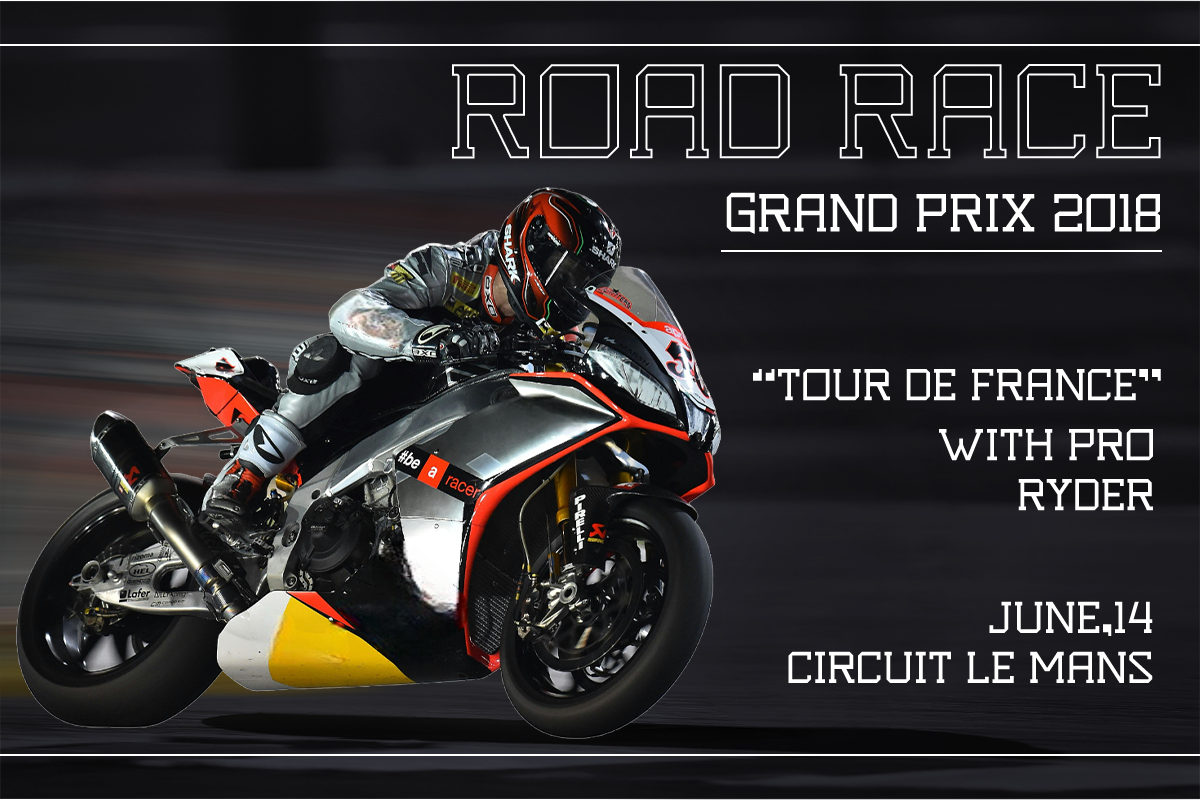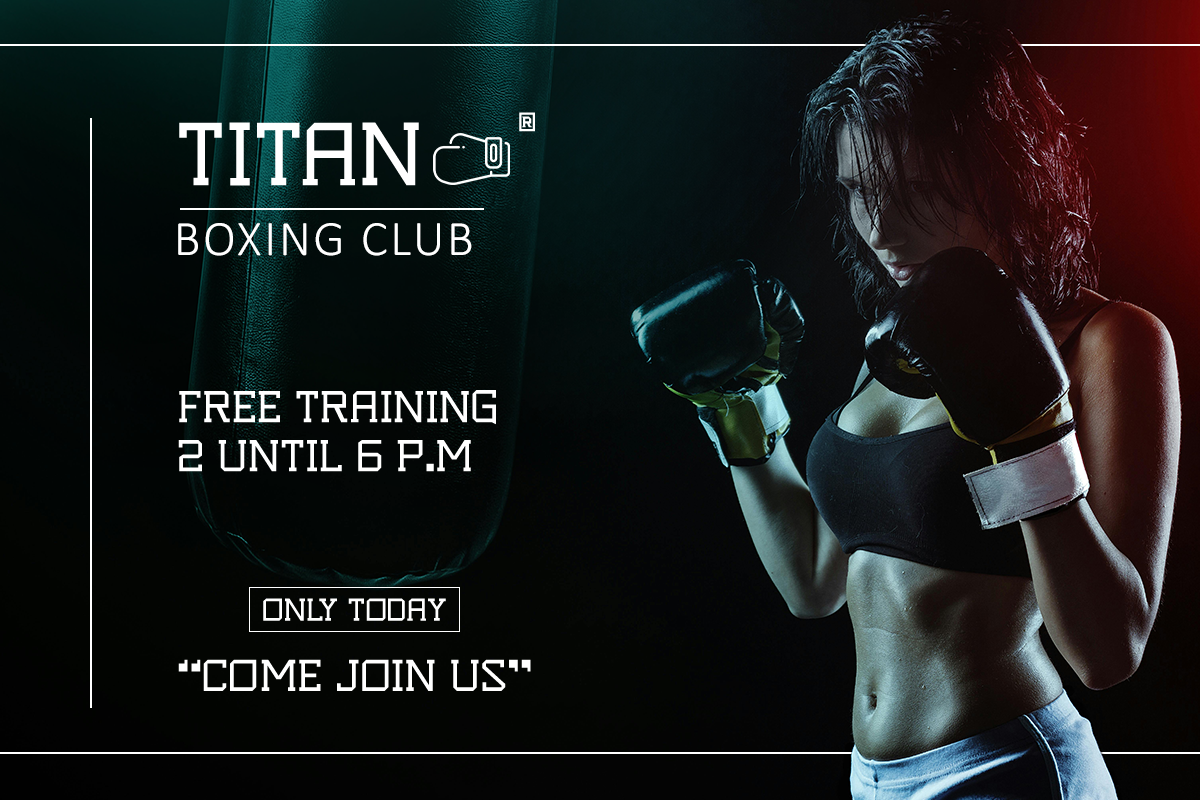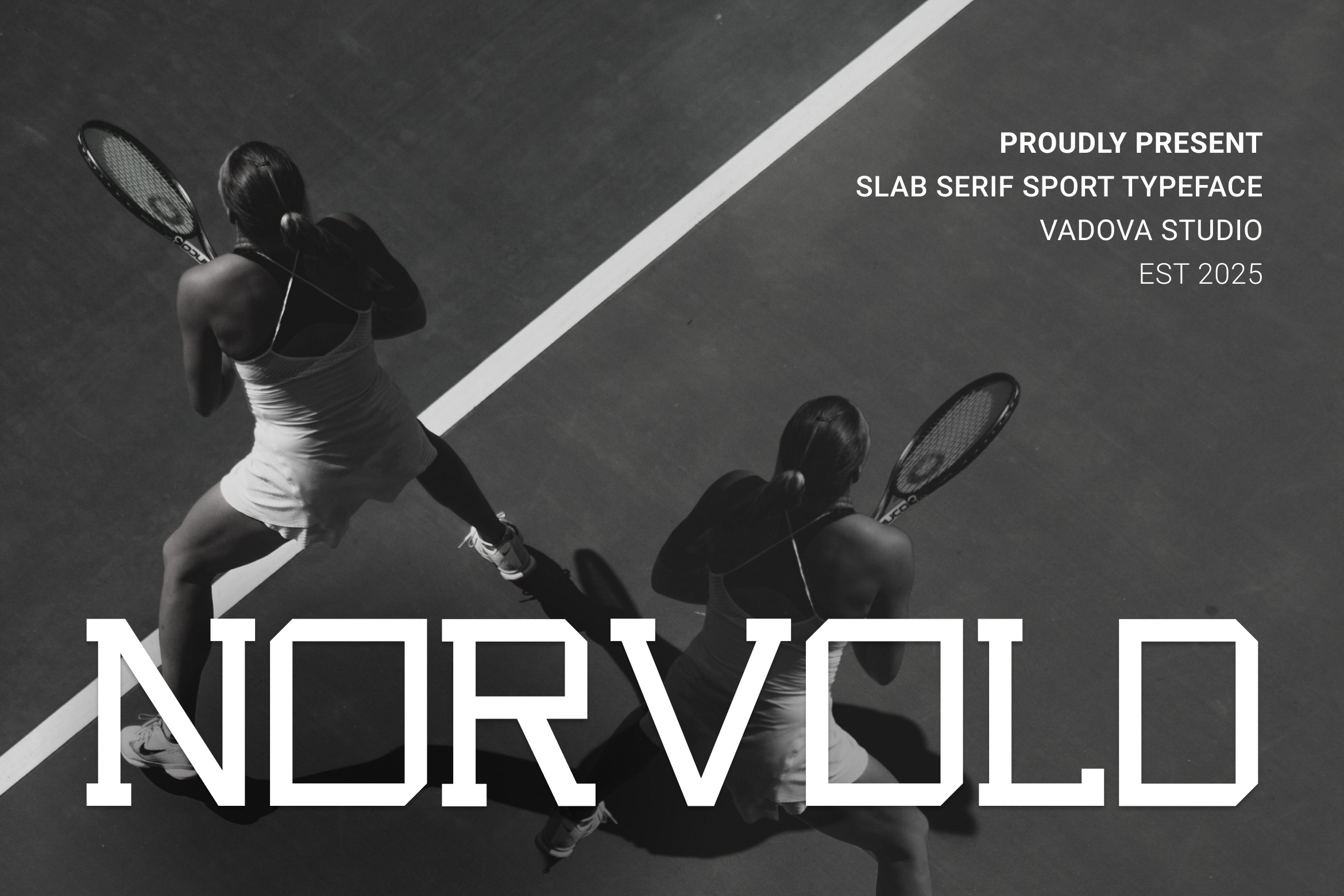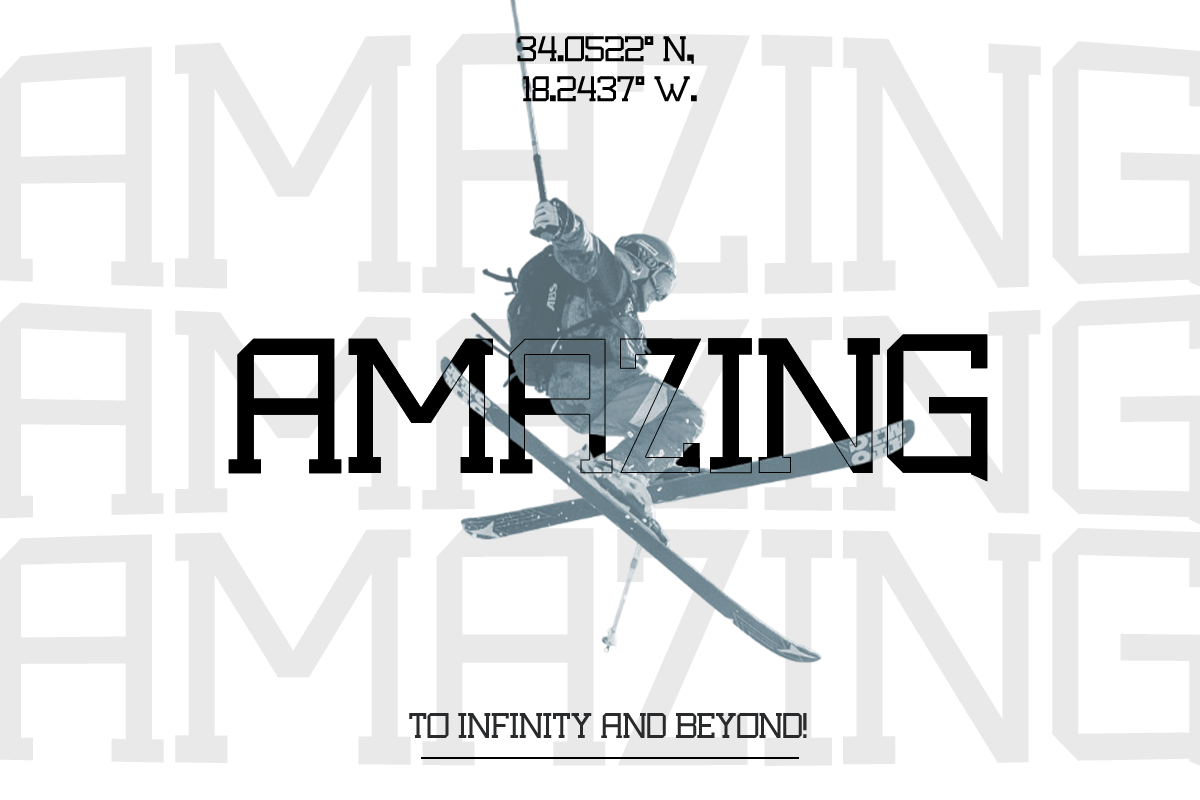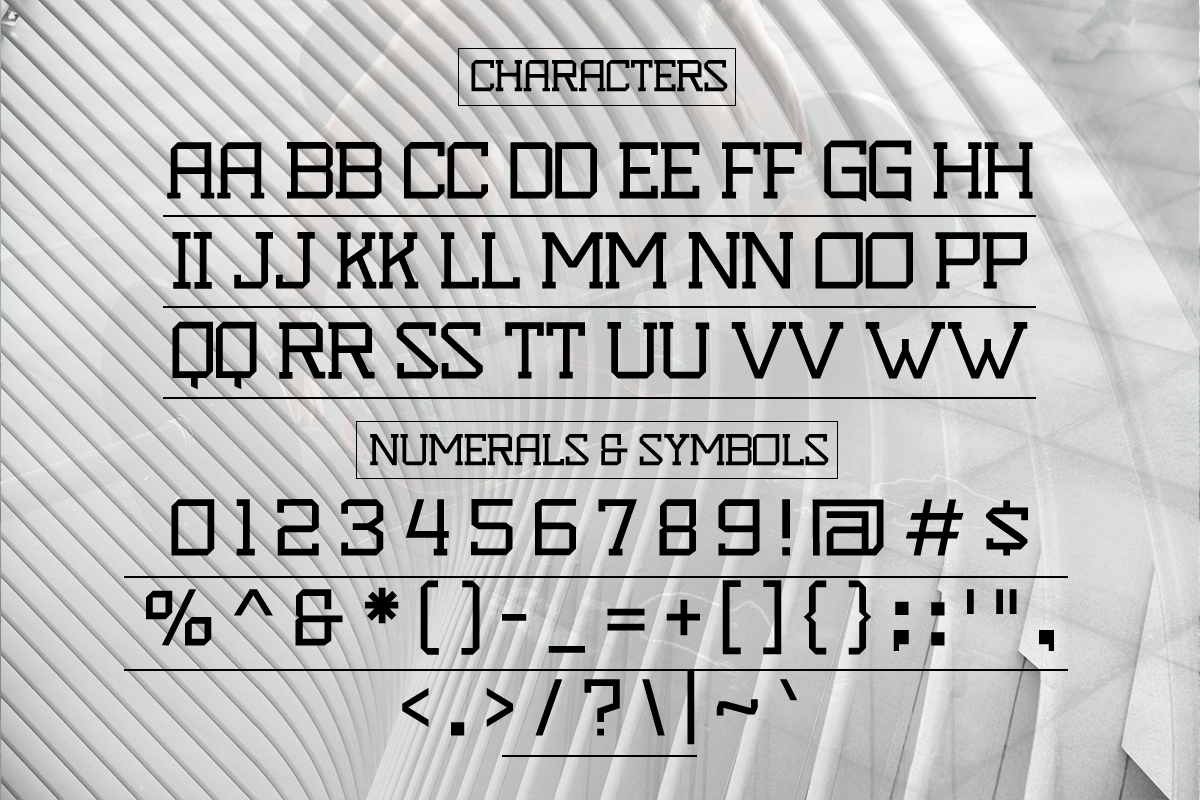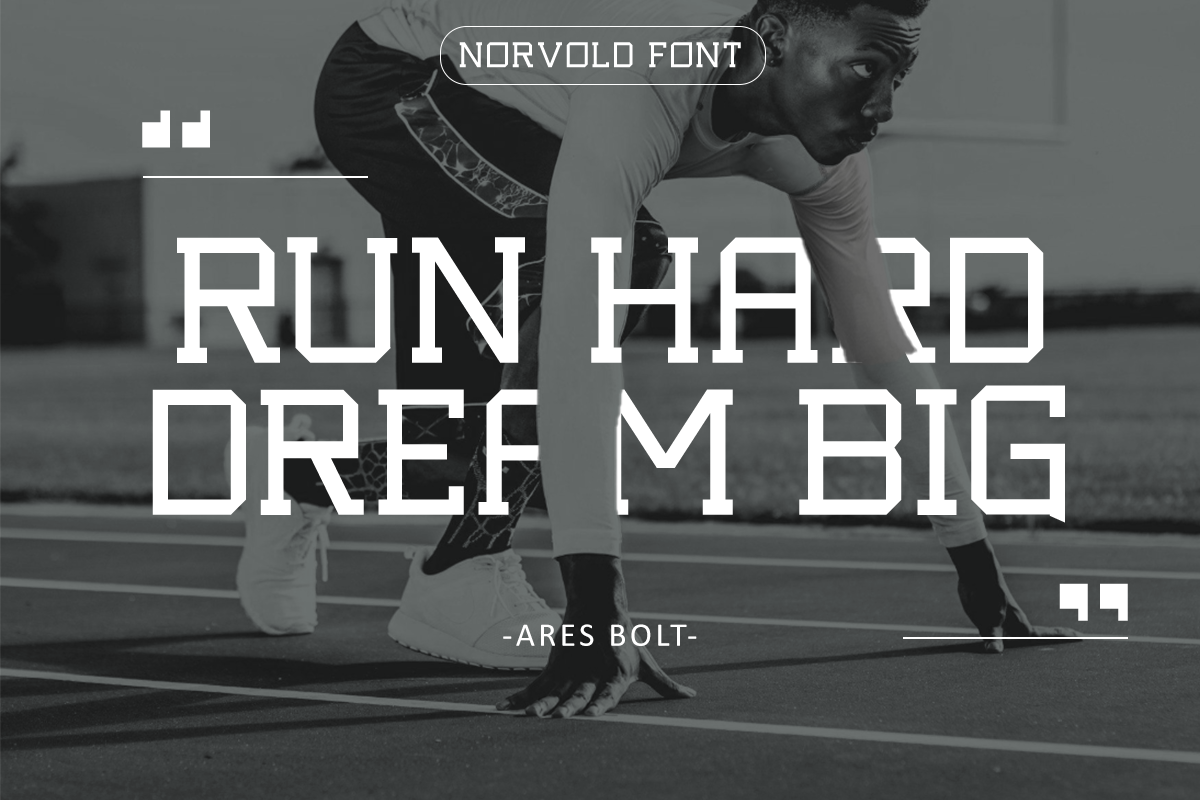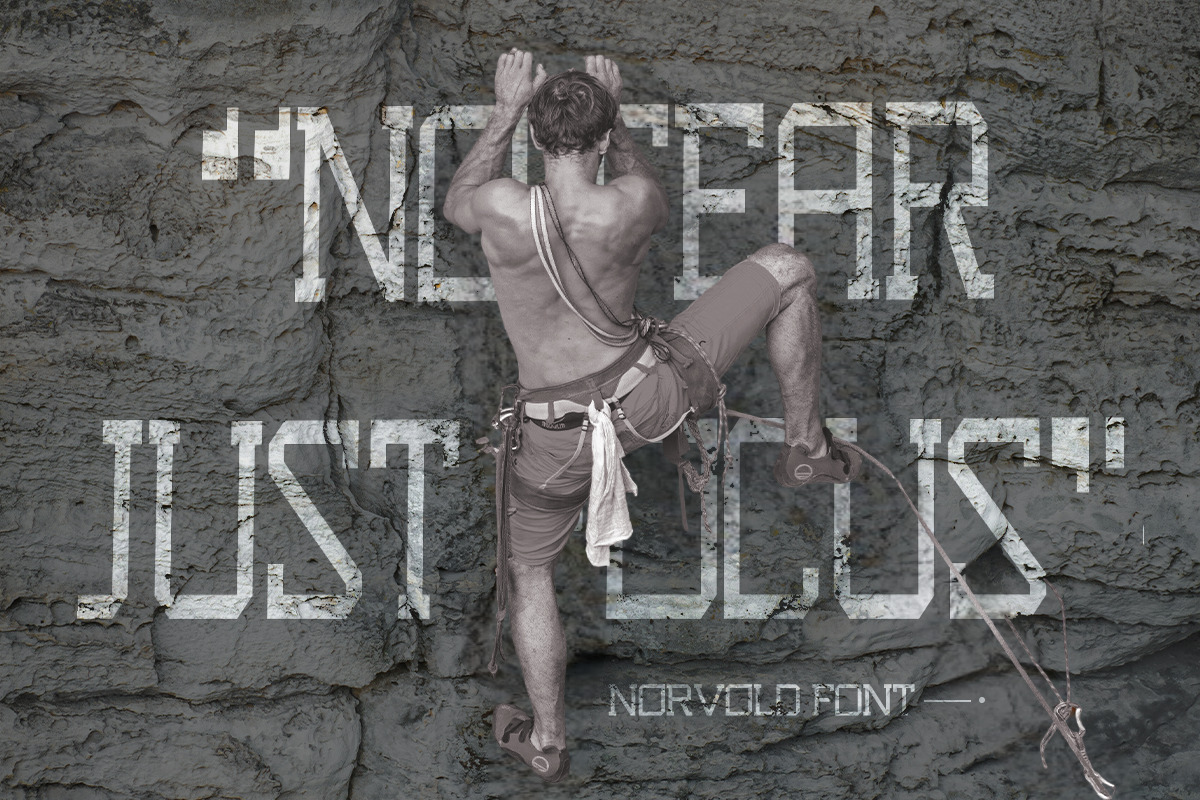
Norvold – Slab Serif Sport Typeface
Norvold is a slab serif font designed with the power and determination of sport typography. Its solid structure and square slab serifs communicate strength, stability, and confidence, making it ideal for high-impact designs that demand attention. The bold letterforms carry an athletic vibe, perfectly aligning with sports branding, varsity apparel, and editorial covers.
This typeface blends modern slab serif design with a sporty edge, giving it a versatile appeal for both professional and energetic projects. Whether used in magazine headlines, team posters, or athletic product packaging, Norvold provides a commanding presence that is impossible to overlook.
Why Designers Love It:
Sturdy slab serif style that conveys confidence and authority.
Geometric construction with sharp corners for a modern edge.
Athletic vibe that fits sports branding, varsity jackets, and tournament posters.
Works perfectly in large-scale titles and impactful headlines.
Uppercase & Lowercase Letters
Best Use Cases:
Sports Branding & Team Logos
Event Posters & Flyers
Editorial Magazines & Covers
Athletic Apparel & Merchandise
Product Packaging & Labels
Tournament Announcements & Banners